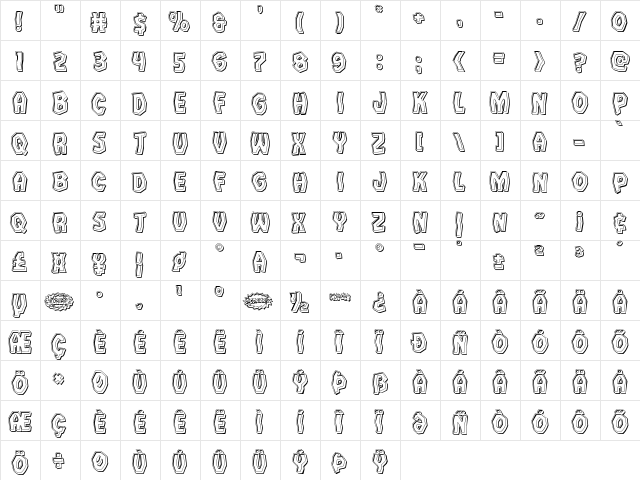
Vampire Bride Engraved Regular
Design Context for Vampire Bride Engraved Typeface
Vampire Bride Engraved is built around its visual character rather than neutral utility — its distinctive forms are designed to make an impression at display sizes.
Font Pairing: Pair with a clean neutral sans-serif for body copy to let Vampire Bride Engraved's character lead without overwhelming the composition.
Pro Tip: Use Vampire Bride Engraved exclusively at display sizes — it was designed to be seen, not read at length. Let a neutral companion handle body copy.